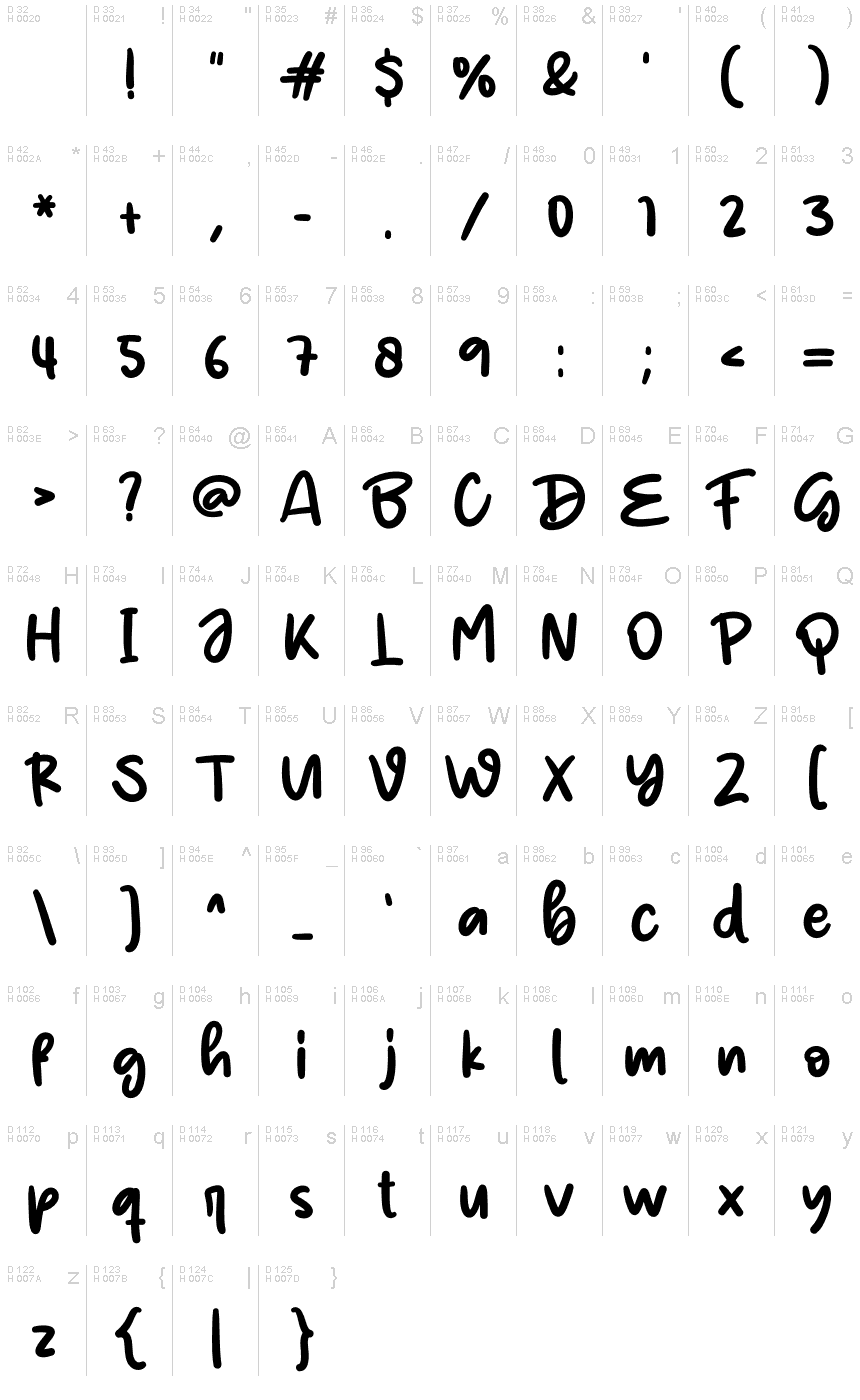
Little Turtle
Little Turtle is a playful and engaging semi-bold font designed by Scratchones. With its fun handwritten style, this font is perfect for a wide range of projects that require a touch of creativity.
Its whimsical charm makes it an excellent choice for children's books, greeting cards, and party invitations. The semi-bold weight adds a sense of boldness and clarity to your designs without sacrificing the font's delightful appeal.
Bring your projects to life with Little Turtle and let the imagination run wild!